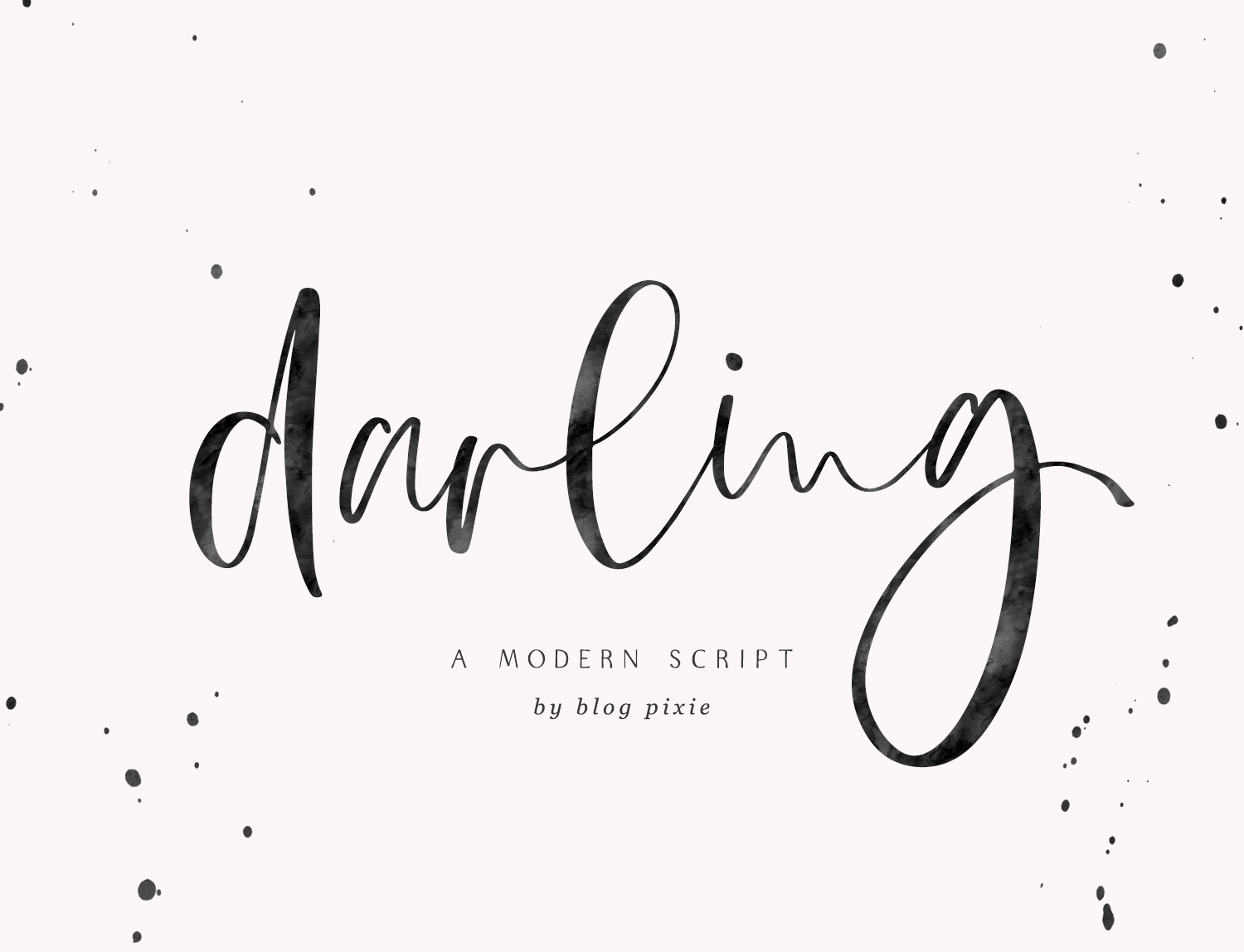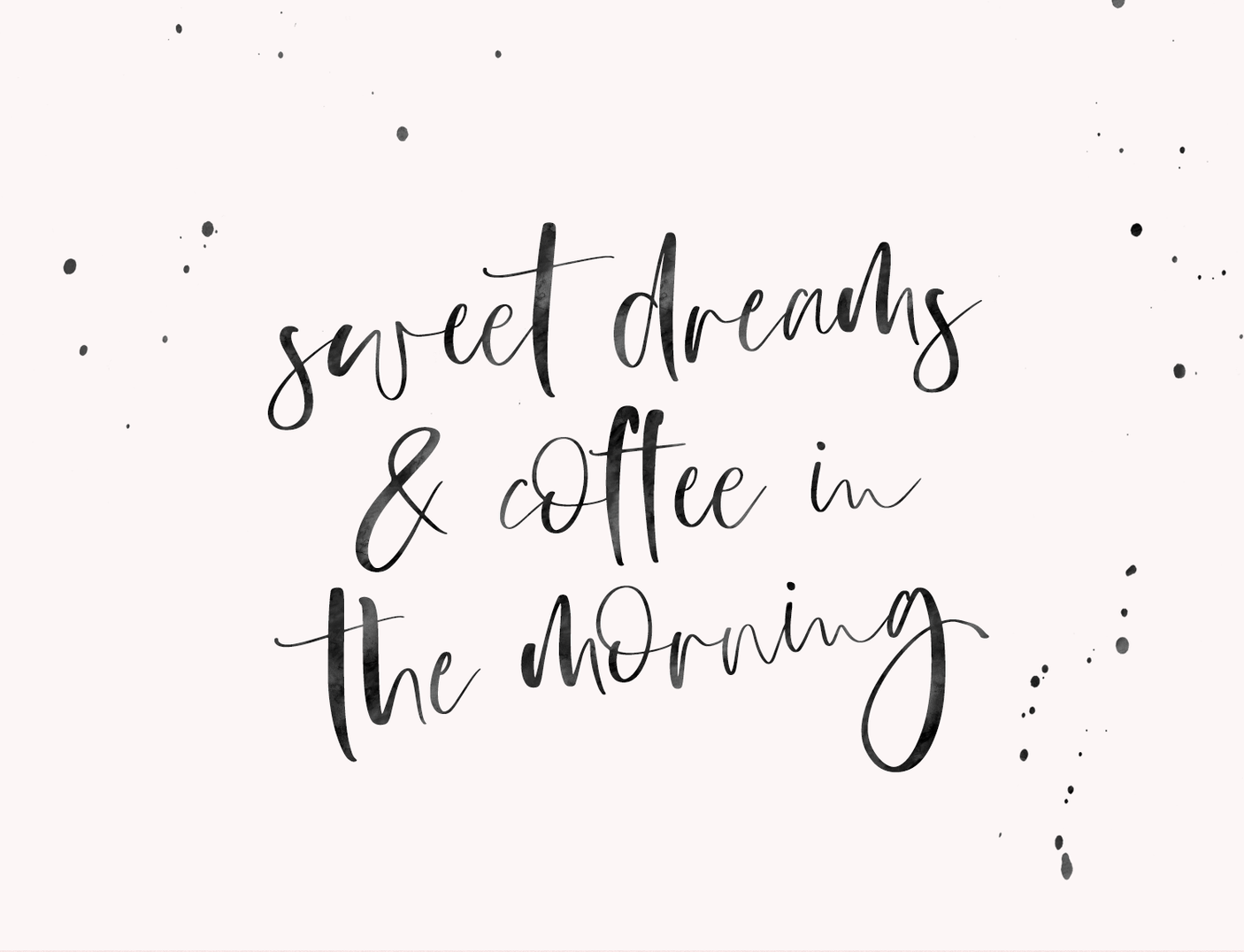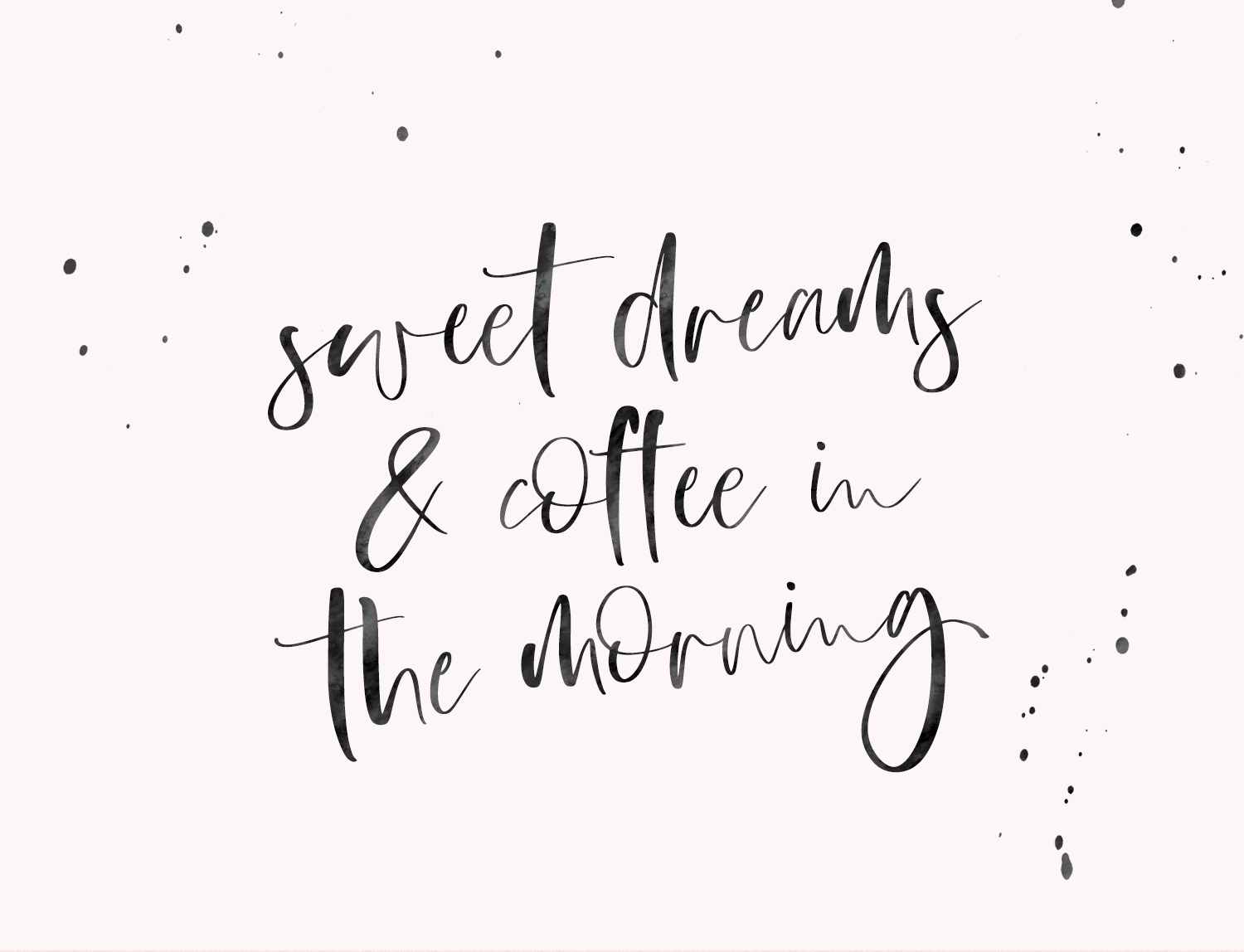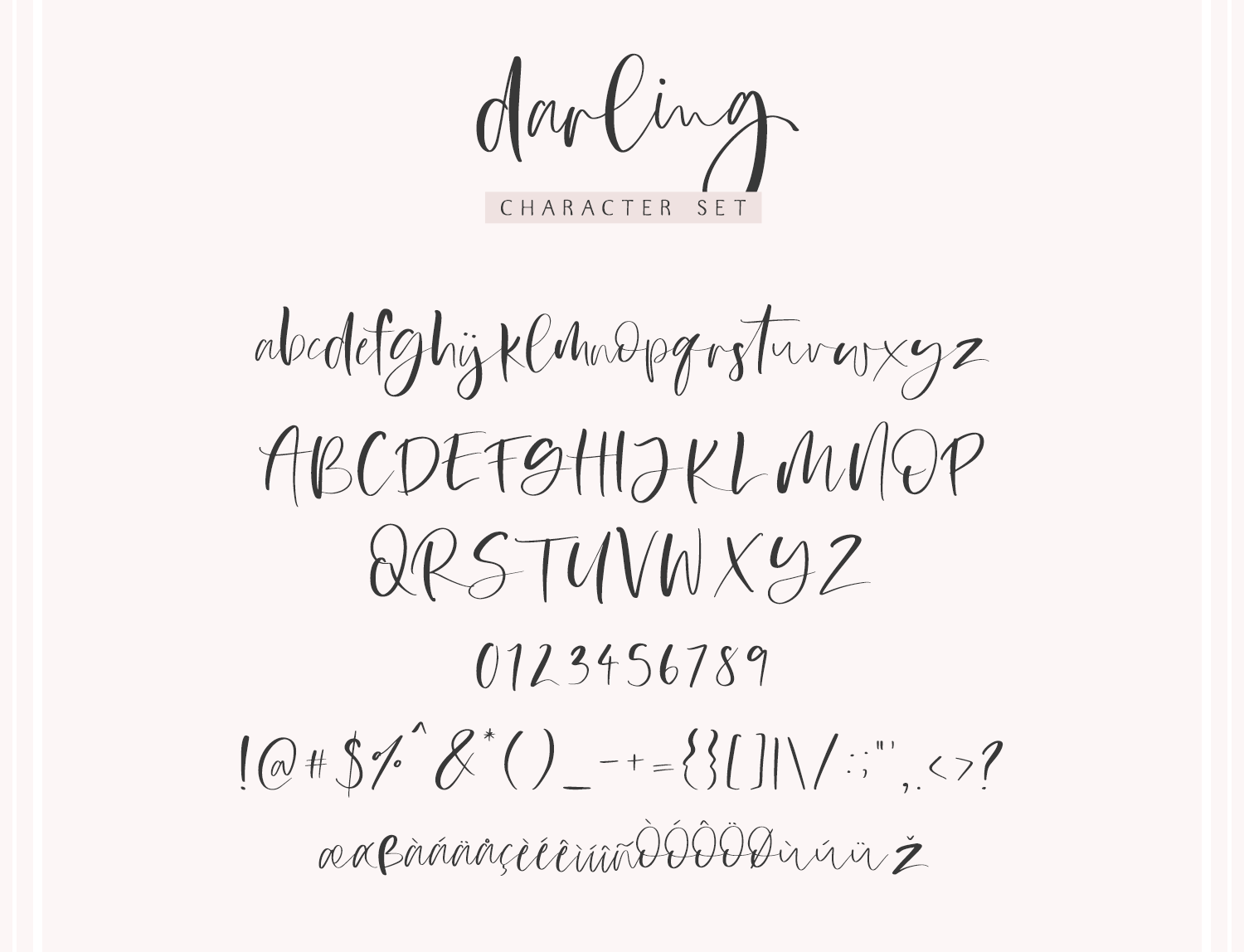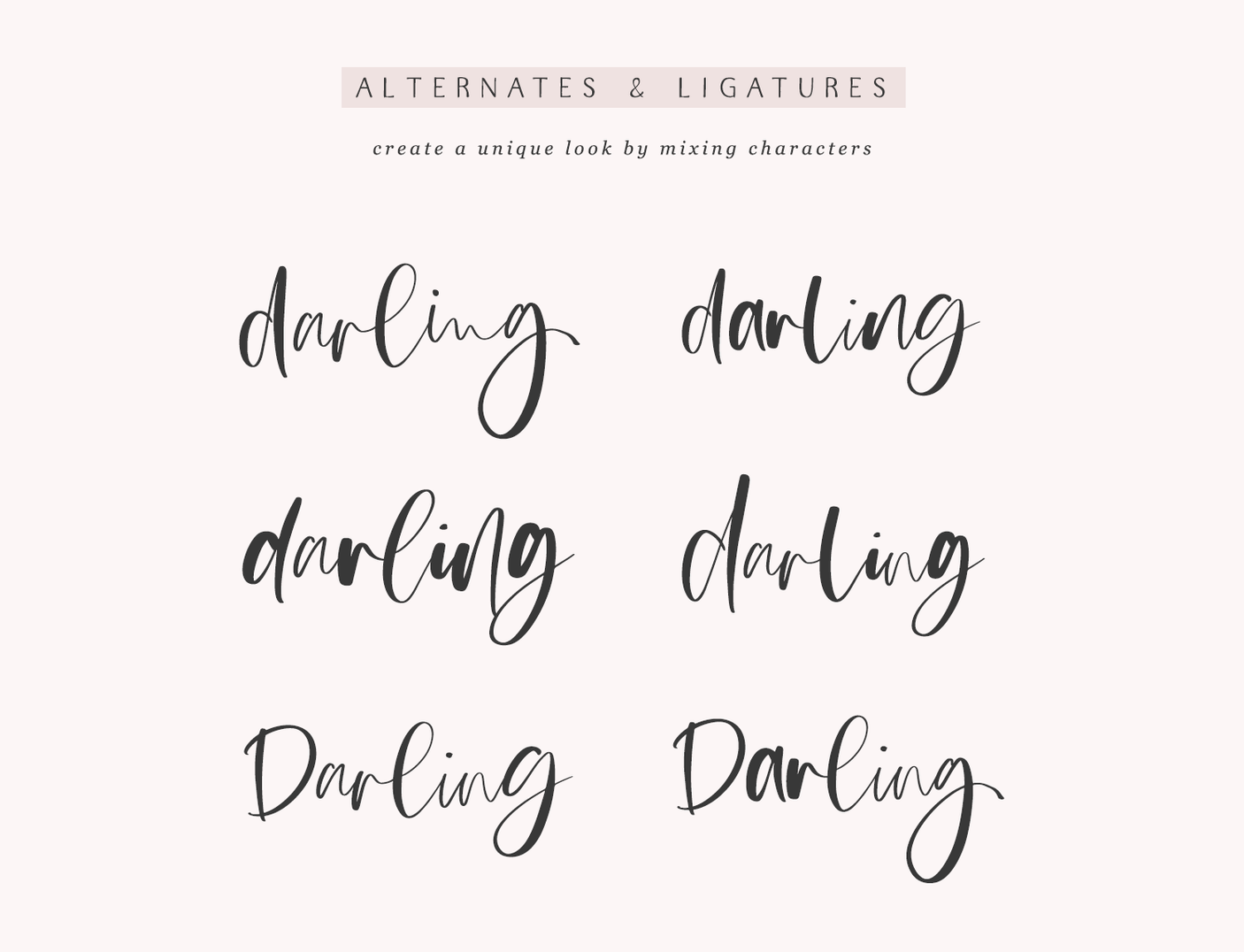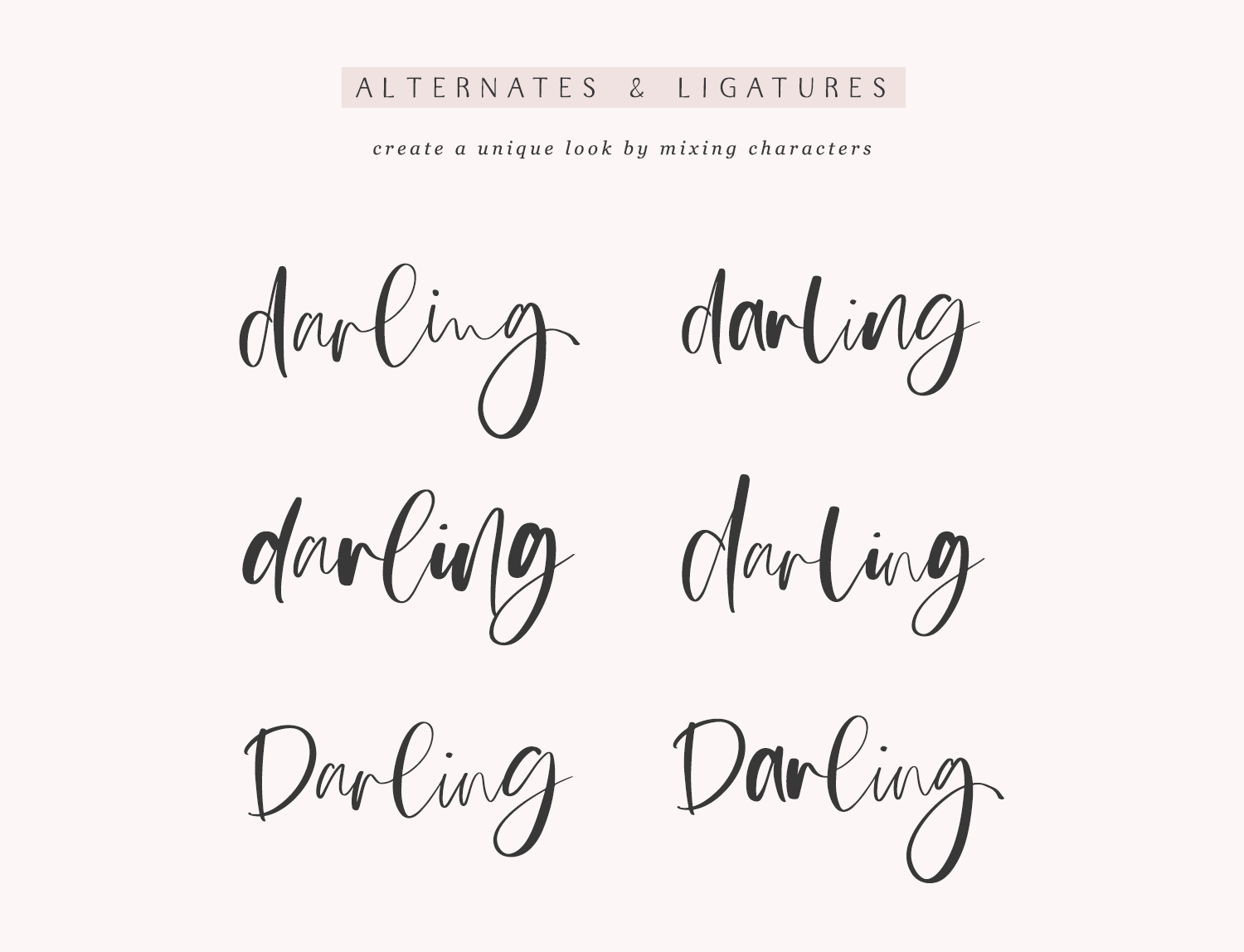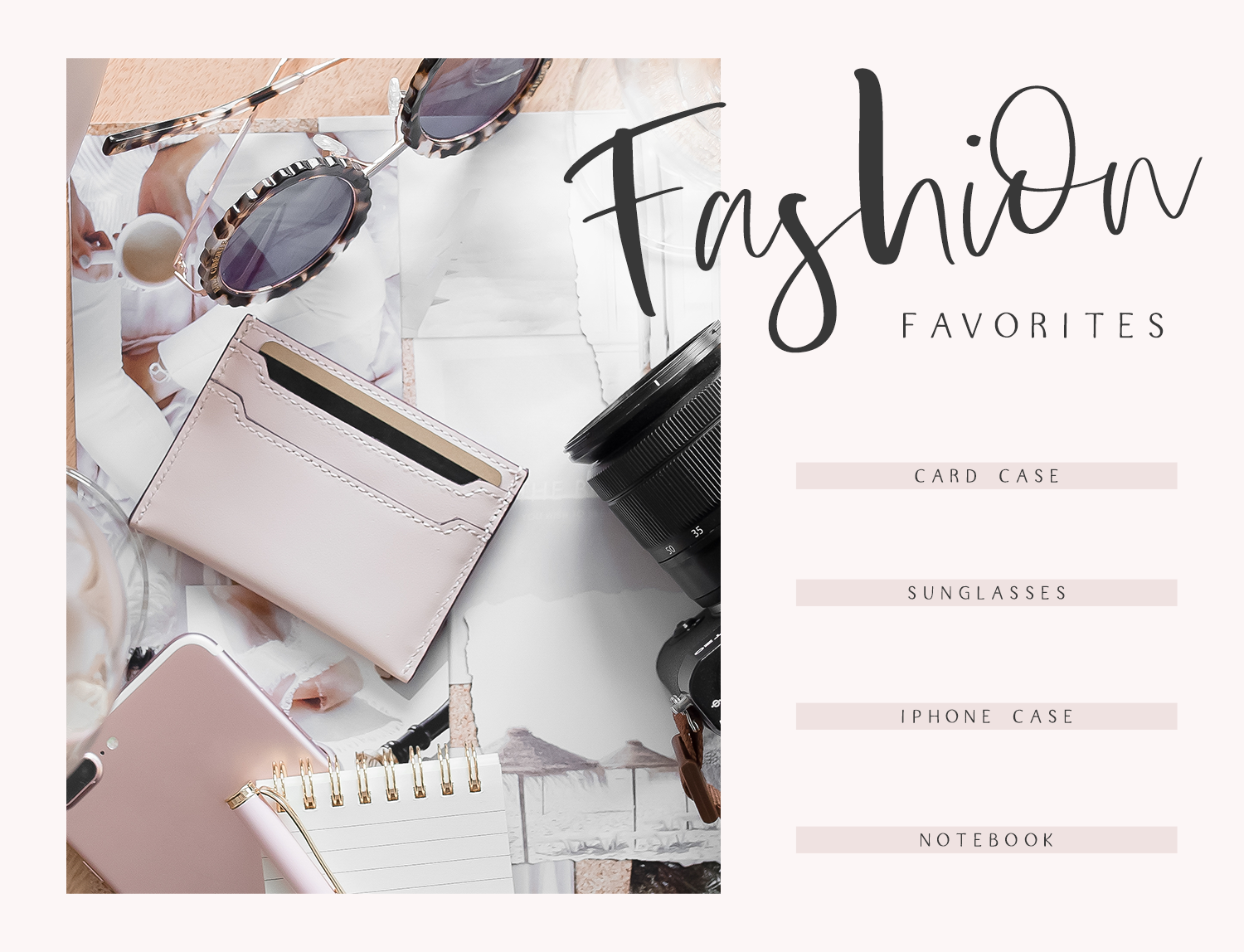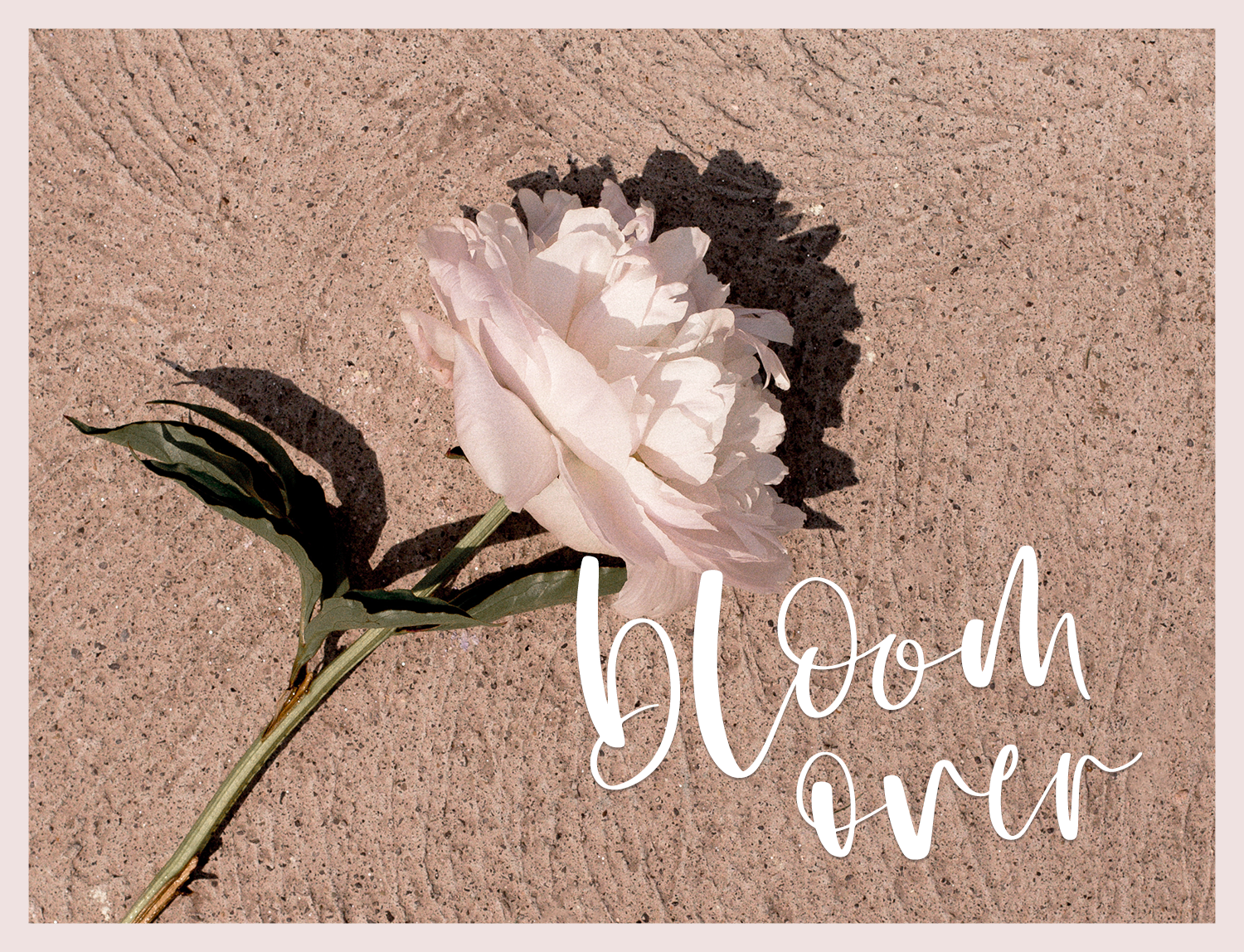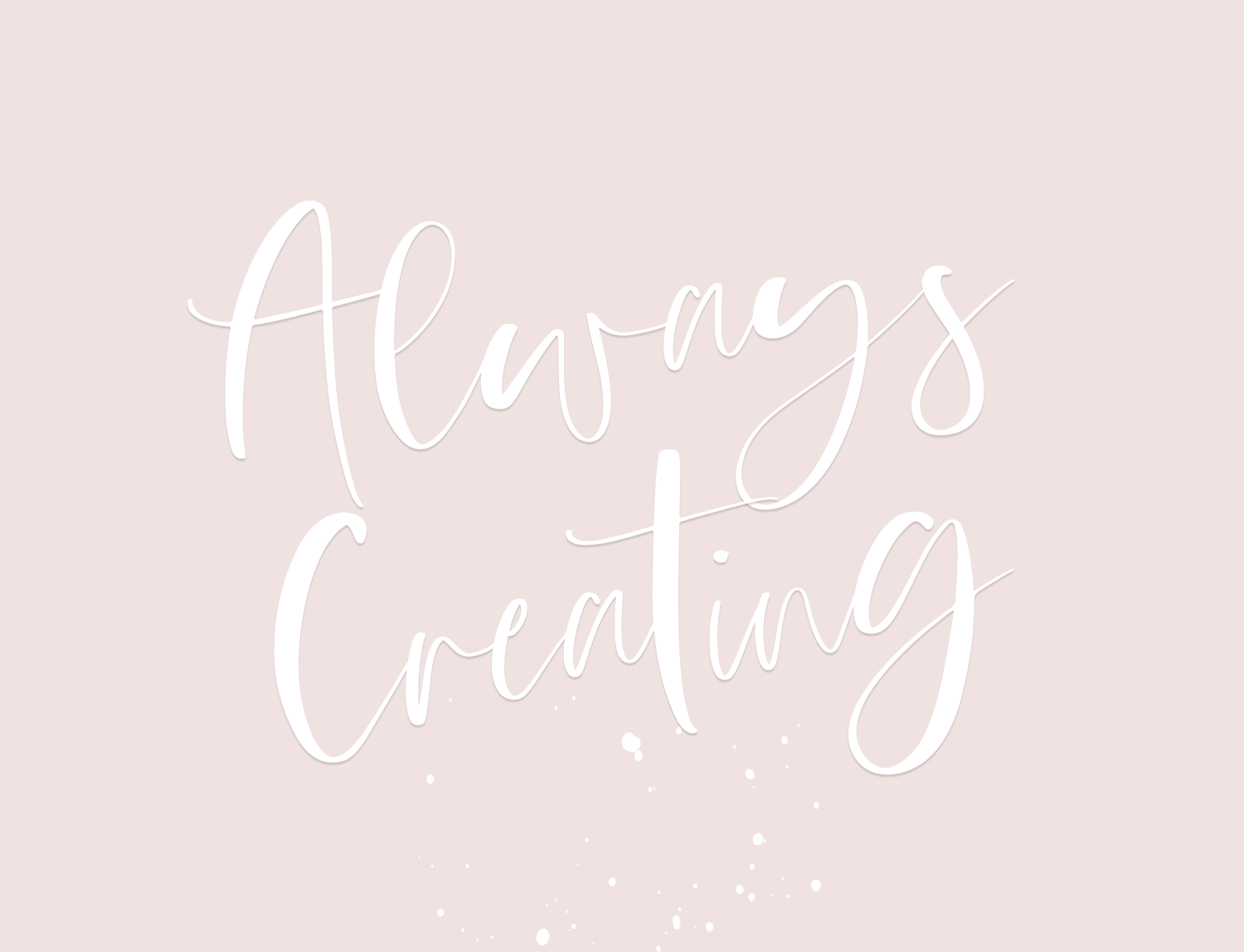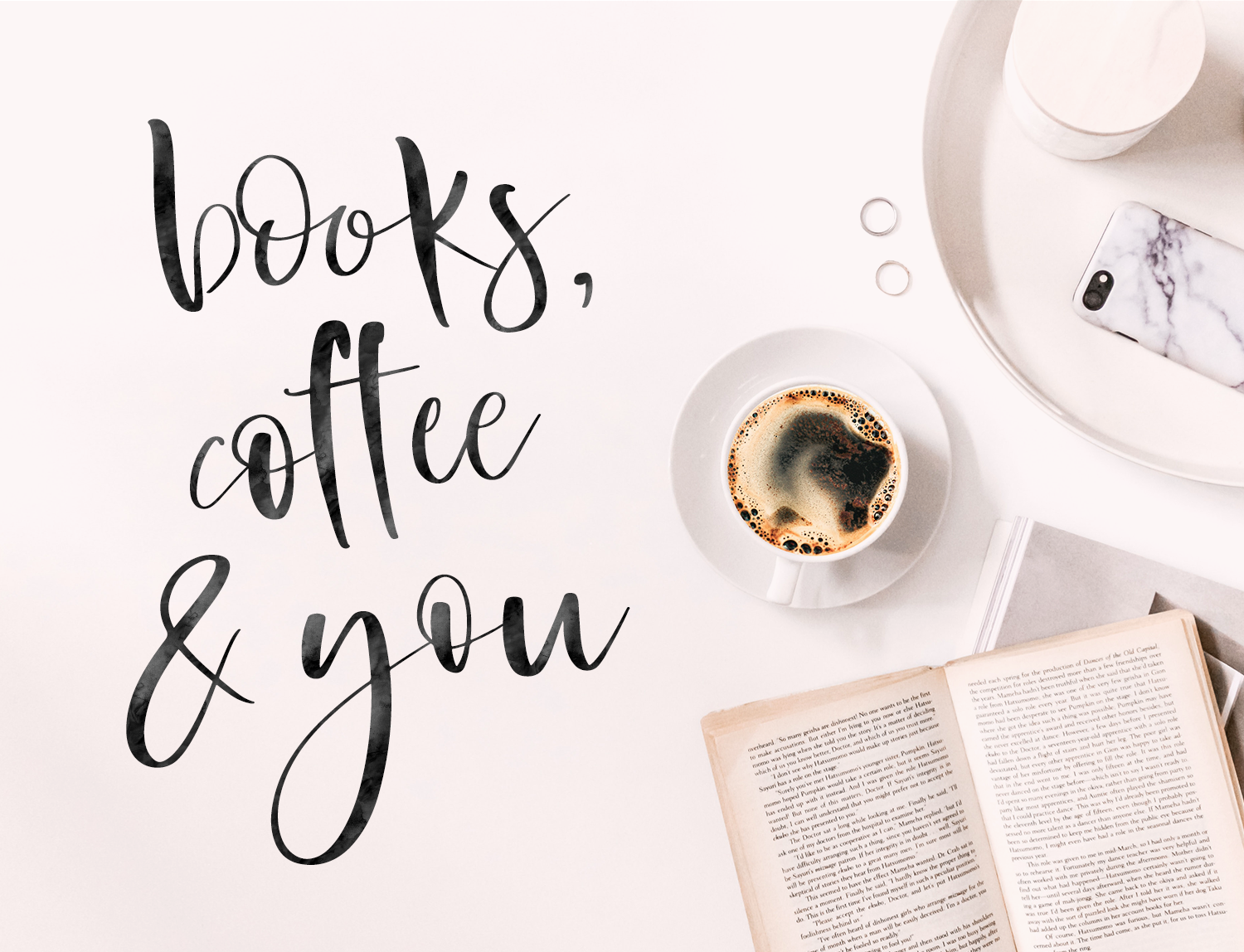
Darling Font
Darling font is a stunning hand lettered calligraphy script font to add a spark of creativity to a project.
With an array of ligatures and alternate characters, you can create a unique hand-lettered effect.
Use Darling script for quotes, invitations, stationery, print design, logos, magazine, eBooks and more.